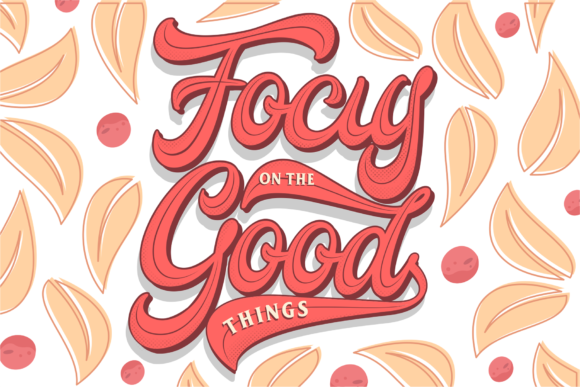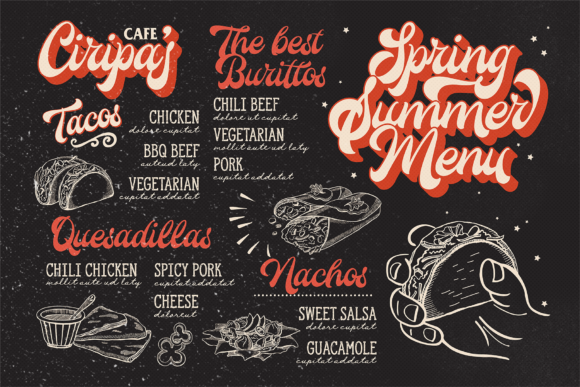
Bon Voyage Duo Font
db-ku.com - Script & Handwritten -- The Bon Voyage is a fancy handmade font duo. It was inspired by popular retro handlettering in the 70’s added with a touch of pop style. This handmade font is made with several precision layers and lots of glyph’s.